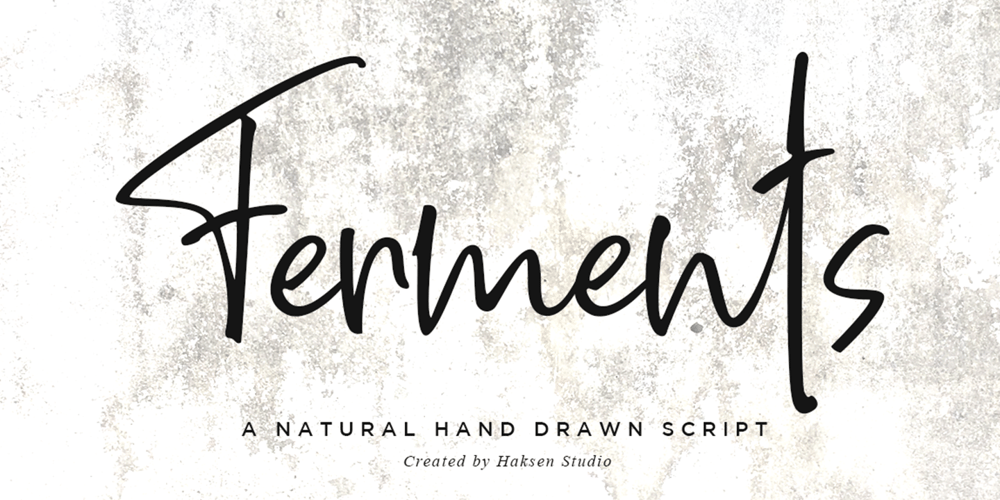
Ferments Font Family was designed by Sarwo Edhi Prayitno and published by Haksen. Ferments contains 2 styles and family package options. Ferments is a stylish modern and natural handwritten script font with casual chic flair. It is perfect for branding, wedding invites and cards, and maybe for red wine label. Ferments includes full set of Natural uppercase and lowercase letters, numerals, a large range of punctuation and ligatures.In order to use the beautiful swashes, you need a program that supports OpenType features such as Adobe Illustrator CS, Adobe Photoshop CC, Adobe Indesign and Corel Draw.Thanks and have a great day,Haksen Studio